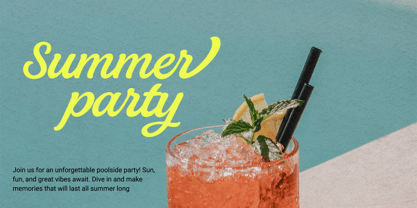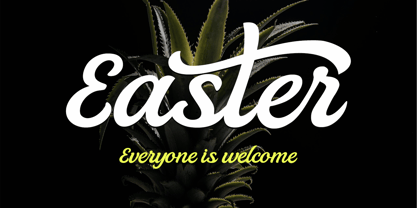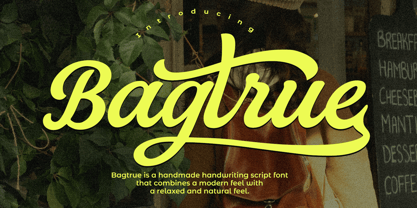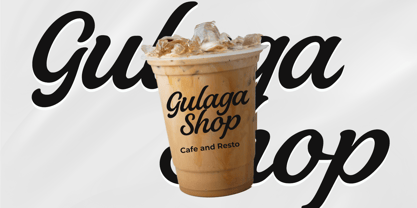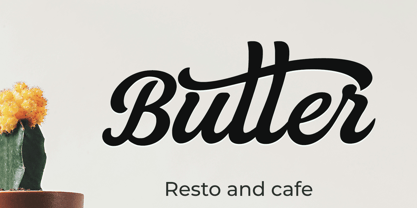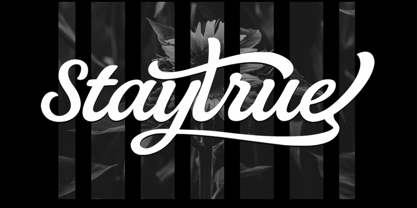
Bagtrue
Die Schriftfamilie Bagtrue wurde von Muhammad Zaini entworfen und von Cocodesign veröffentlicht. Bagtrue enthält 1 Stile. Mehr über diese Familie
Bagtrue – Handmade Handwriting Script Font
Bagtrue is a handmade script font that blends a modern feel with a relaxed, natural feel. Each letter is designed with a smooth, flowing stroke, creating a dynamic and elegant character. Bagtrue's distinctive feature is its beautifully curved, long swoosh detail, creating a lively and expressive look.
This font is perfect for branding, logos, product packaging, and even social media designs that require a creative and eye-catching style. With its bold yet flexible shape, Bagtrue enhances the visual appeal of a design without losing its authentic, handmade feel.